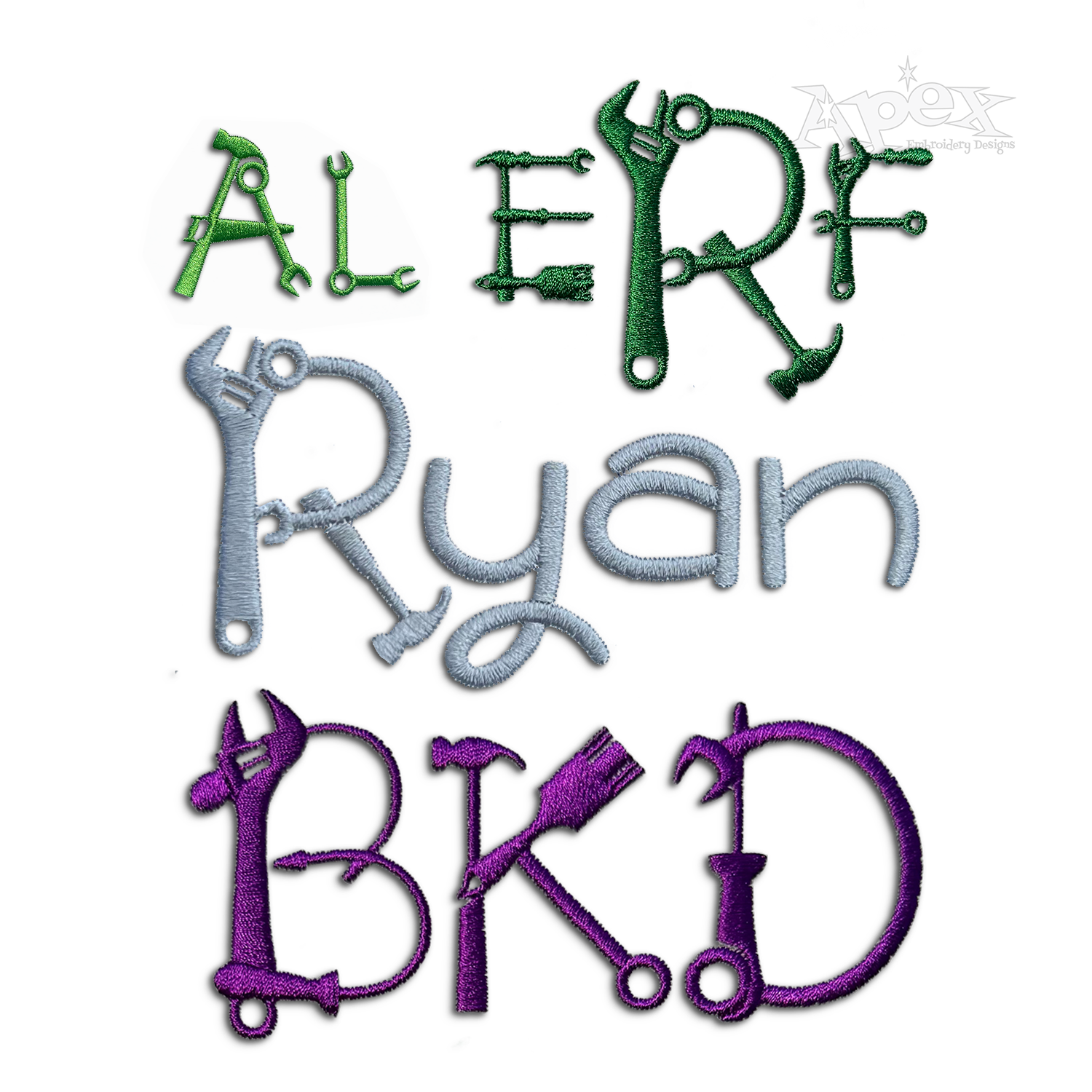
Hand Tools Embroidery Font
Create fun, workshop-inspired lettering with this Hand Tools Embroidery Font. Designed with wrench, hammer, saw, screwdriver, and shed-shop tool details, this machine embroidery alphabet is a great choice for dad gifts, handyman projects, garage decor, work shirts, and personalized maker items.
Design Features
- Hand tool themed machine embroidery font
- Alphabet letters with wrench, hammer, saw, and screwdriver details
- Great for names, initials, short words, and custom text
- Fun style for dad, carpenter, builder, mechanic, and workshop designs